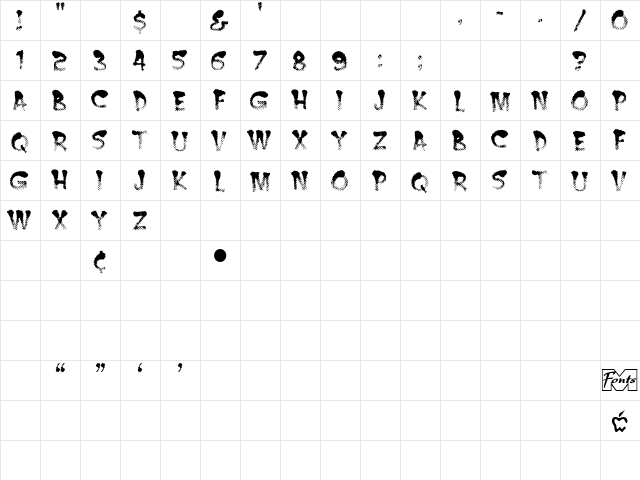
BurntMF A
Design Context for BurntMF Typeface
BurntMF is a composed and adaptable typeface that performs quietly and consistently across a wide range of design contexts.